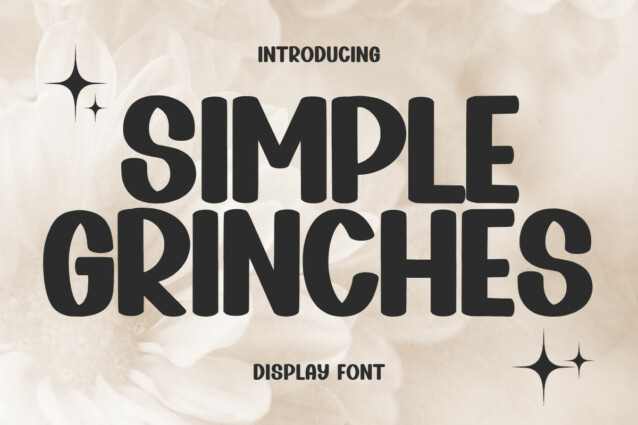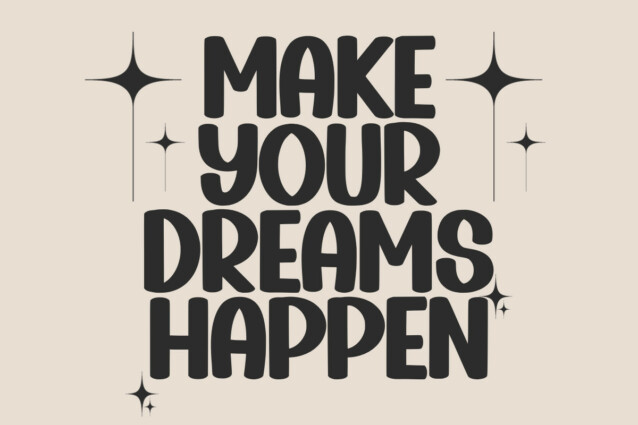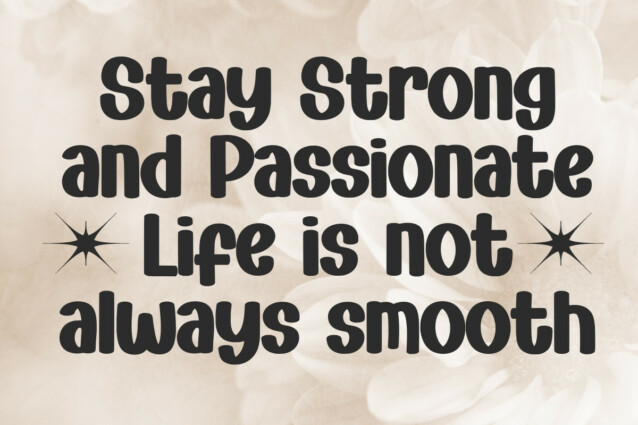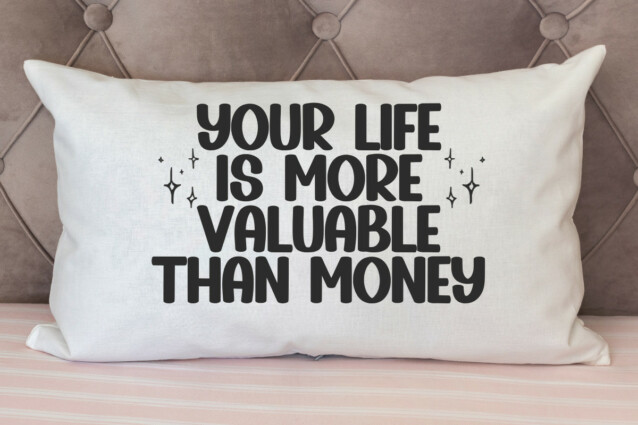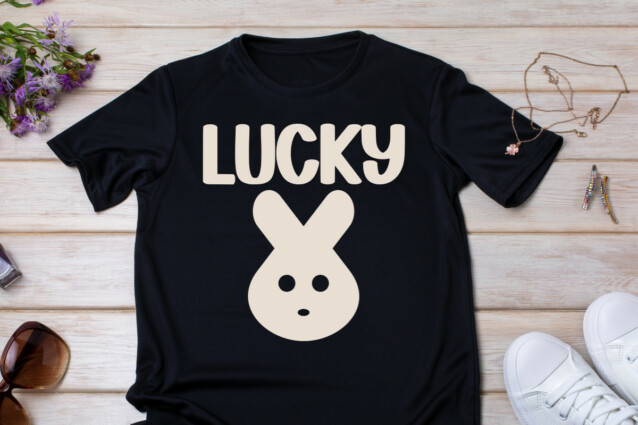
Simple Grinches Display Font
Simple Grinches Display Font is a clean and beautiful display font depicted with a touch of elegance, perfect for your favorite projects. Fall in love with its incredibly distinct and timeless style, and use it to create spectacular designs!